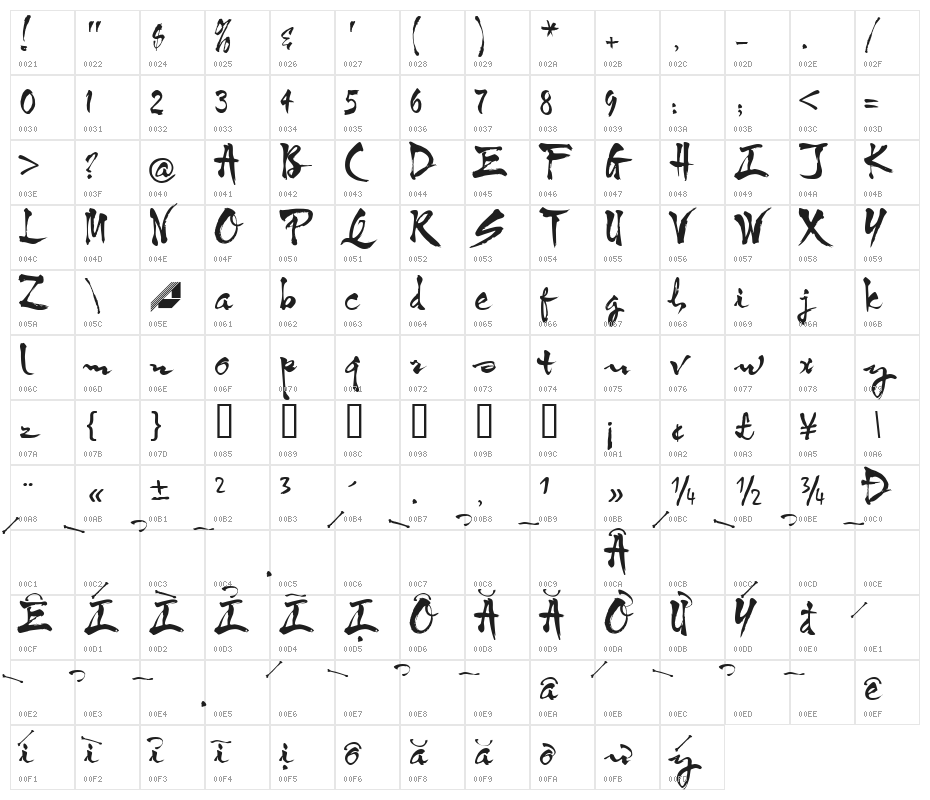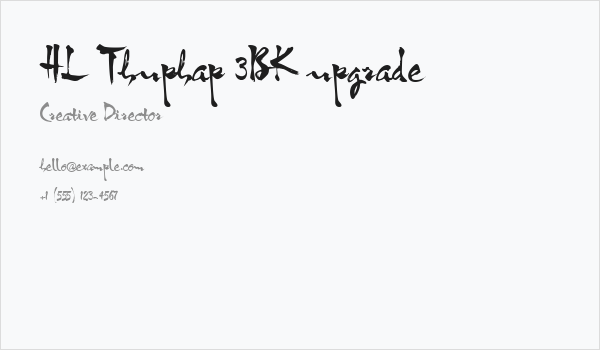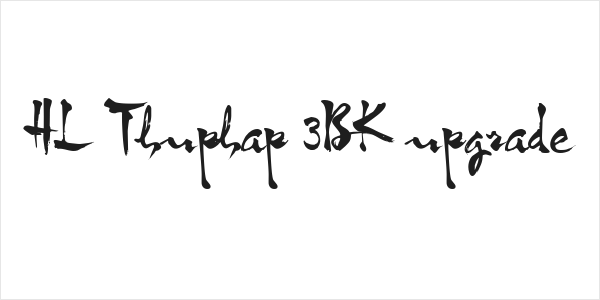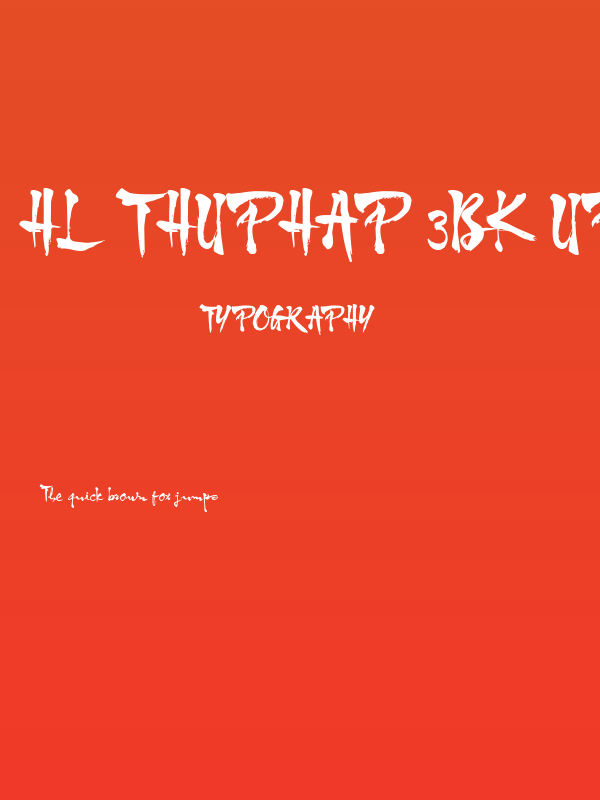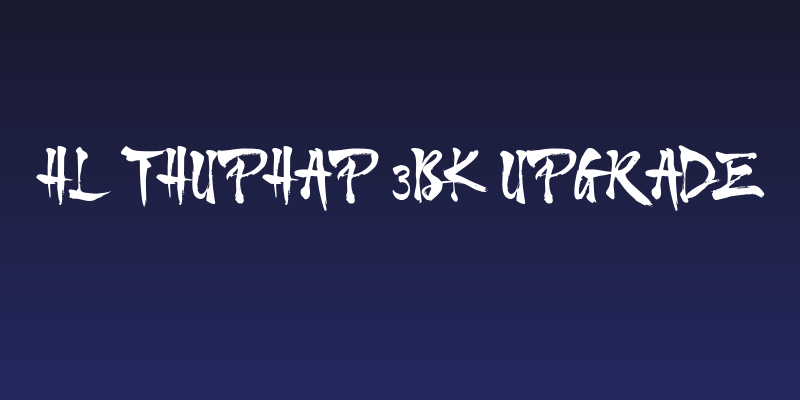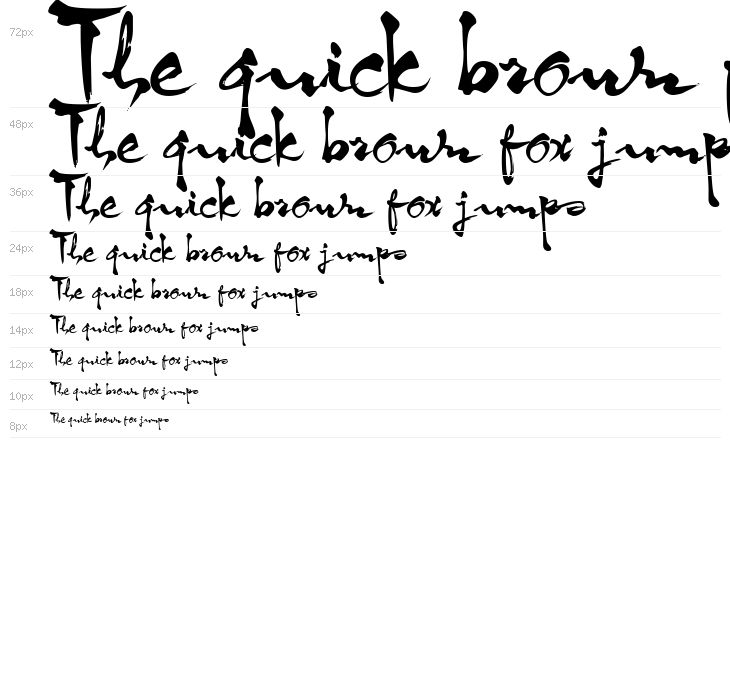
HL Thuphap 3BK upgrade Font
HL Thuphap 3BK upgrade Description
This font exhibits a bold and expressive style, characterized by its brush-like strokes and dynamic flow. The uppercase letters are robust and commanding, with a sense of movement that suggests a handwritten quality. The lowercase letters maintain this fluidity, offering a harmonious blend of elegance and spontaneity. Numbers are consistent with the overall style, ensuring readability while retaining artistic flair. Special characters are creatively integrated, enhancing the font's versatility. This font's unique aesthetic makes it suitable for projects that require a personal touch or artistic expression.
| Proposed Projects | Ideal for artistic projects, branding, invitations, and expressive design work. |